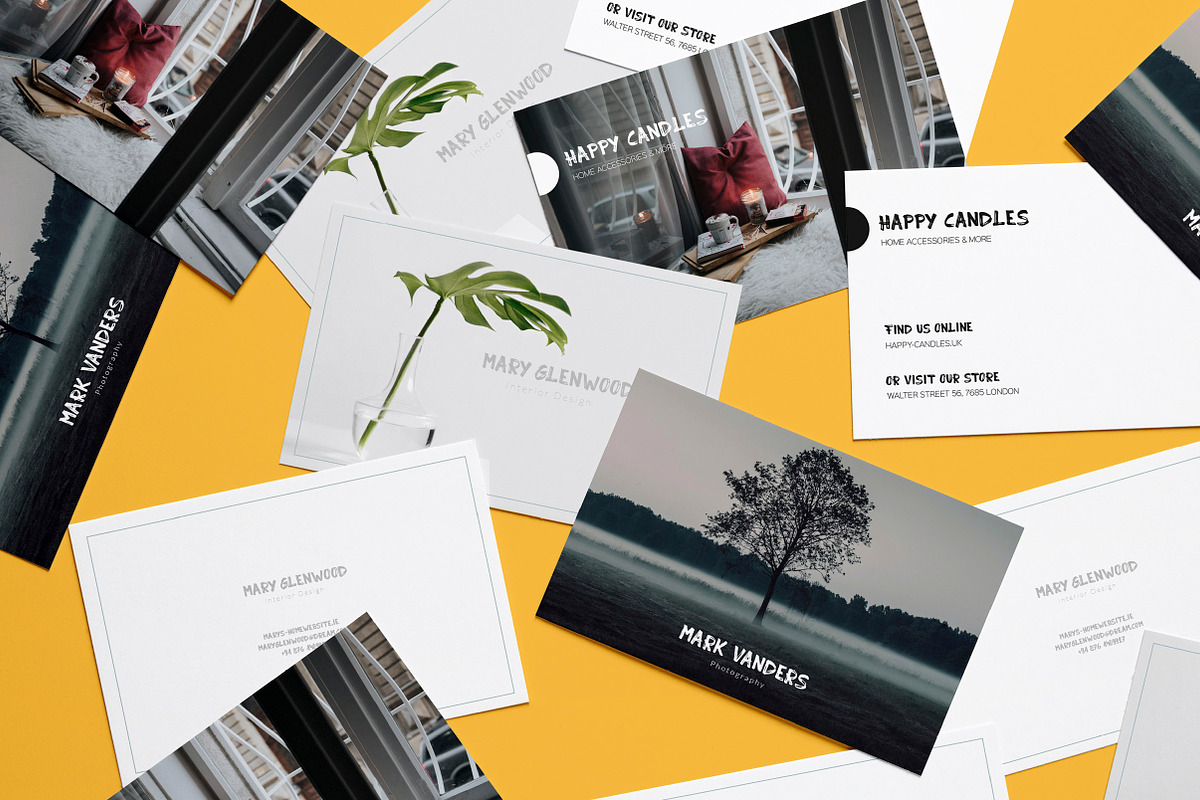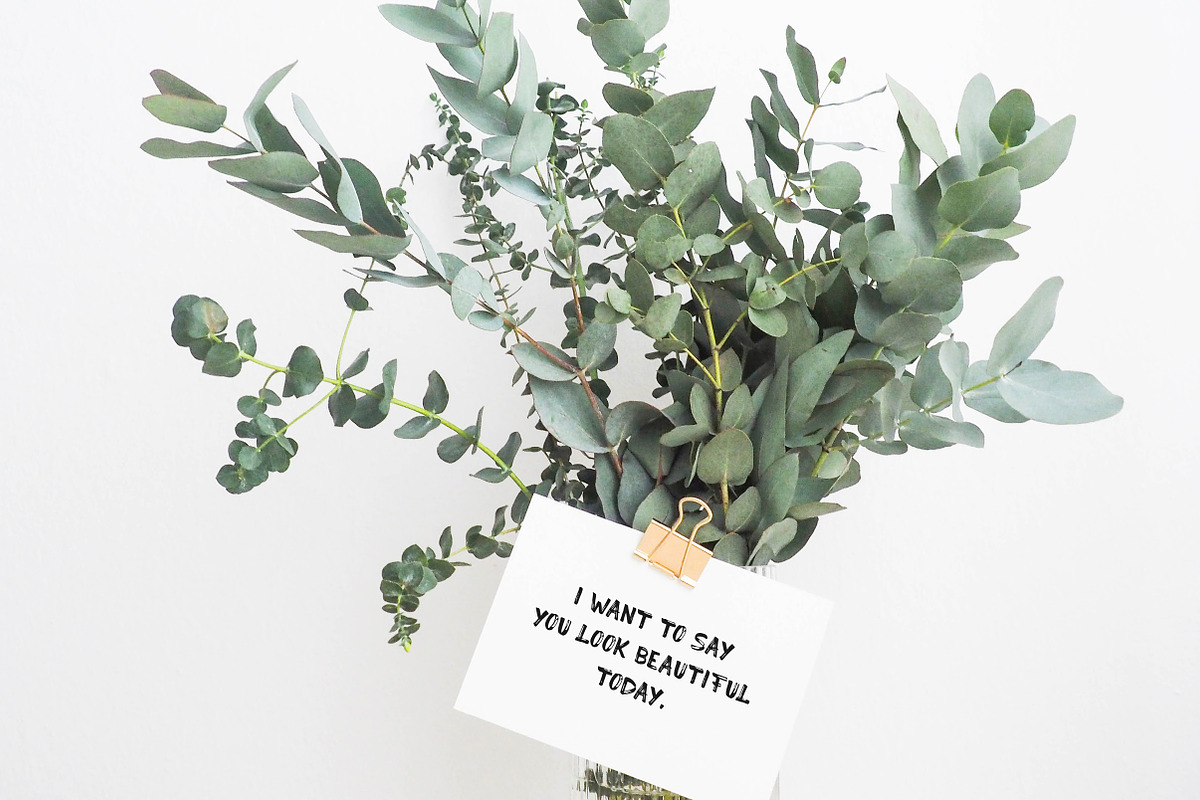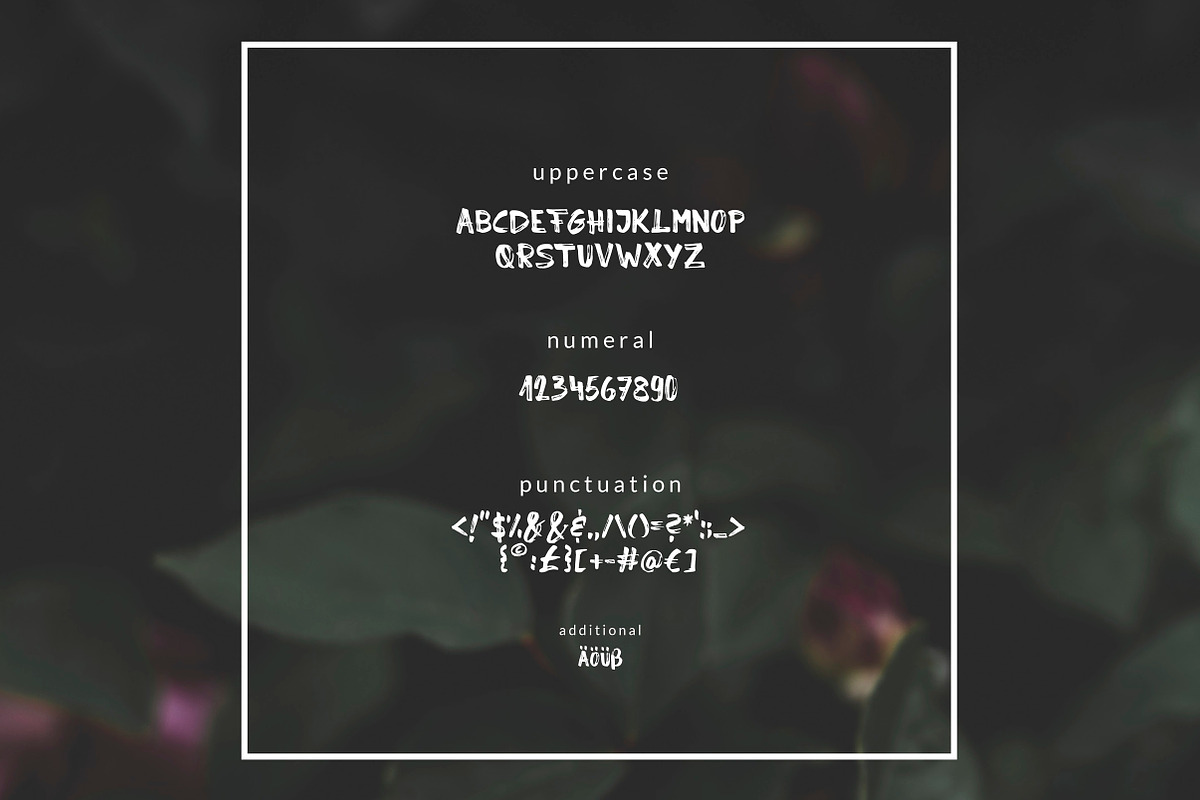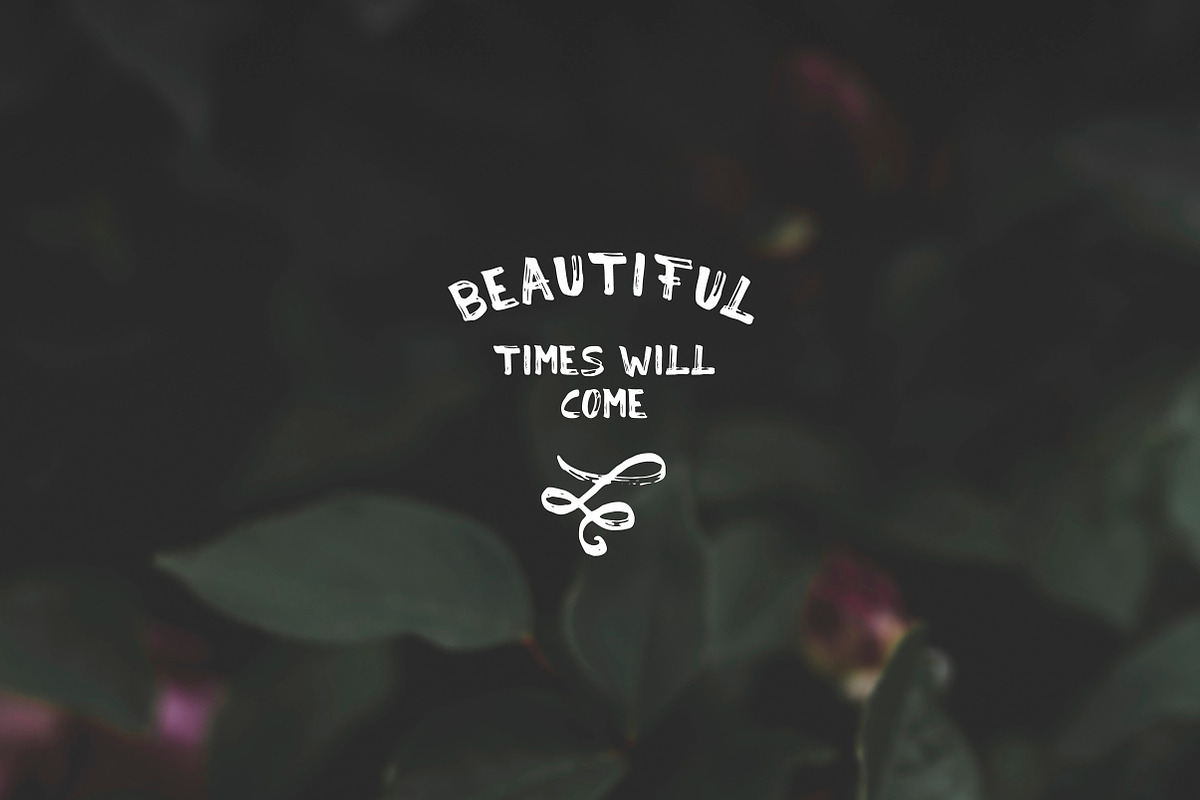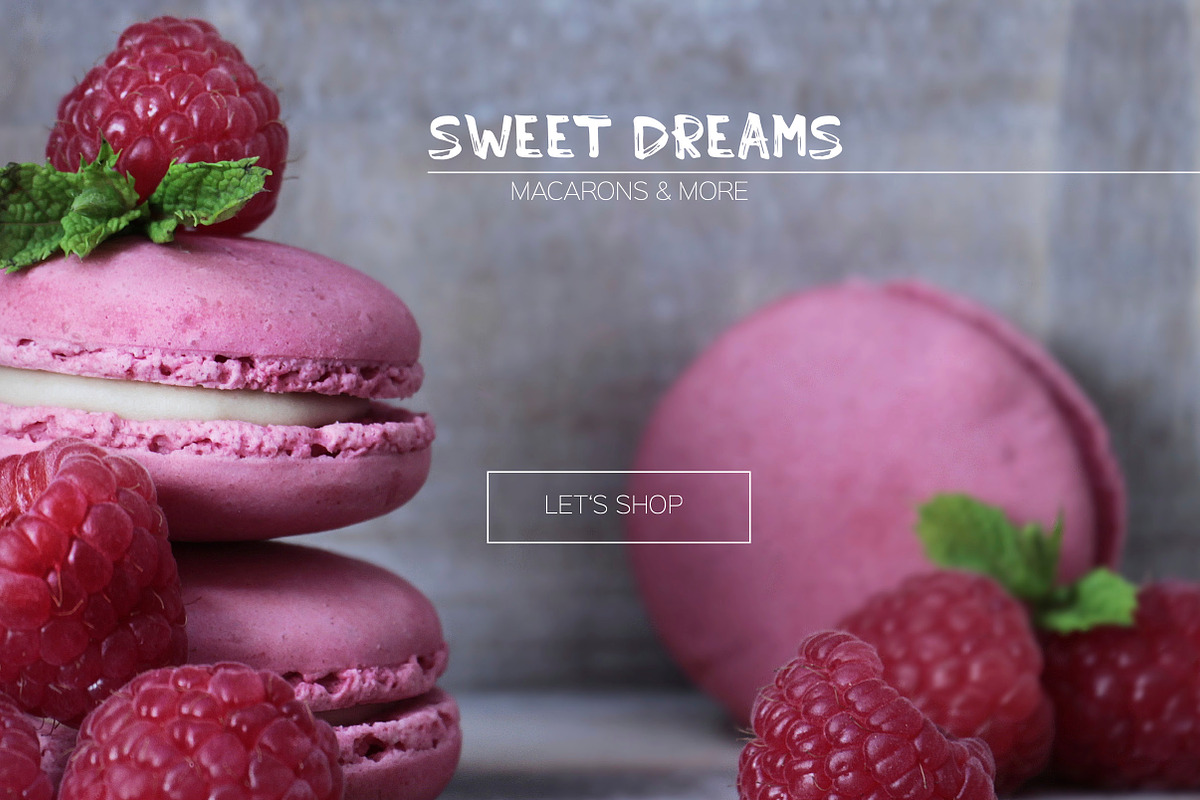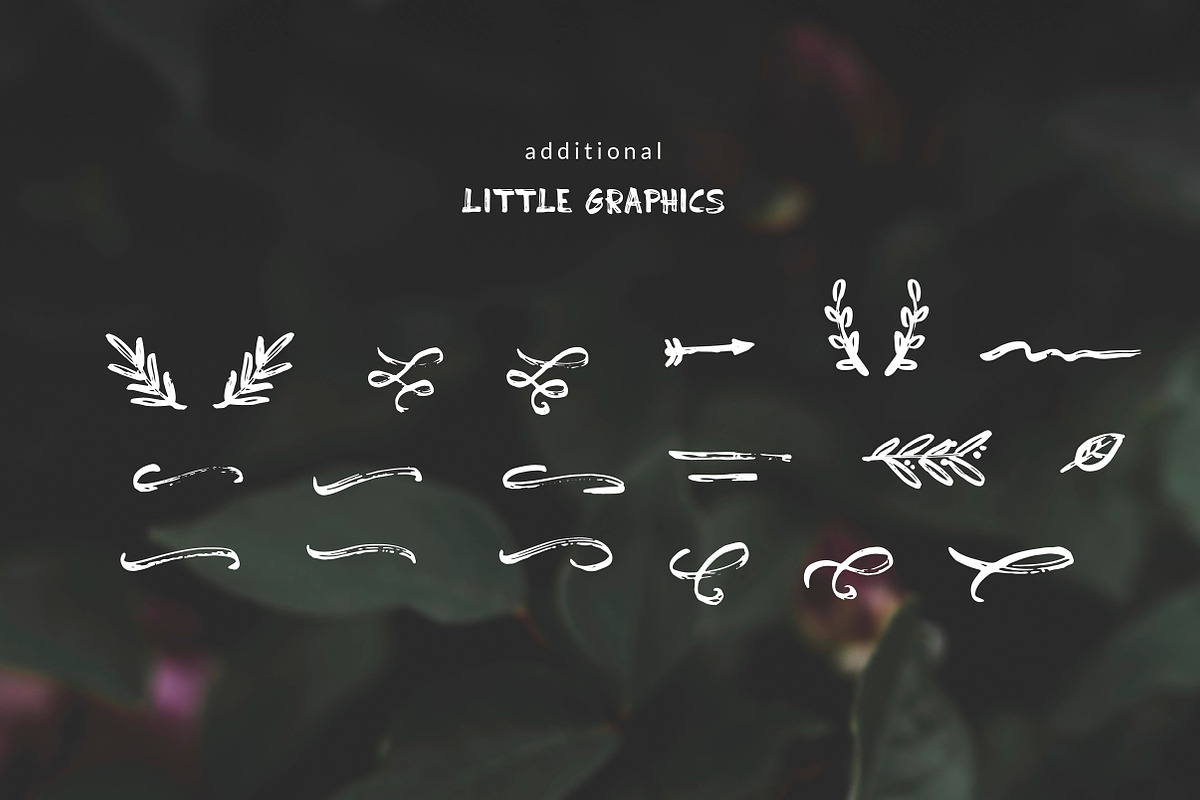
Reafon. Brush Font
Hey there! My new font Reafon works pretty well for invites, prints or logos. There are also some nice little graphics you can use for your designs too!